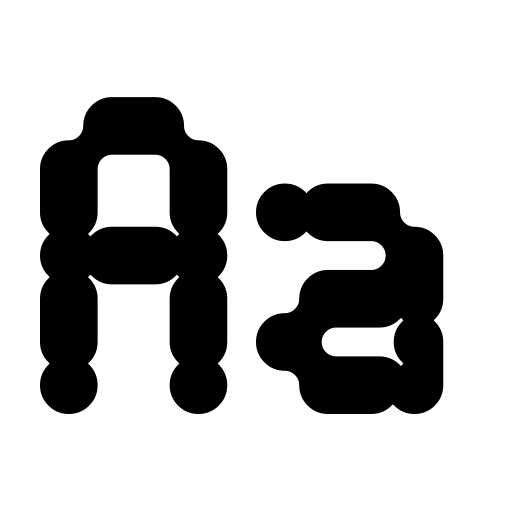
Bauwerck is a bold, geometric sans serif font characterized by its strong, rounded forms and compact letter spacing, giving it a modern and futuristic look. With low contrast and unique shapes—such as the unusual tails and curved strokes—it adds a distinctive, edgy personality that works well for impactful headlines, branding, and creative design projects seeking a contemporary, avant-garde feel.
bauwerck Font
About bauwerck Font